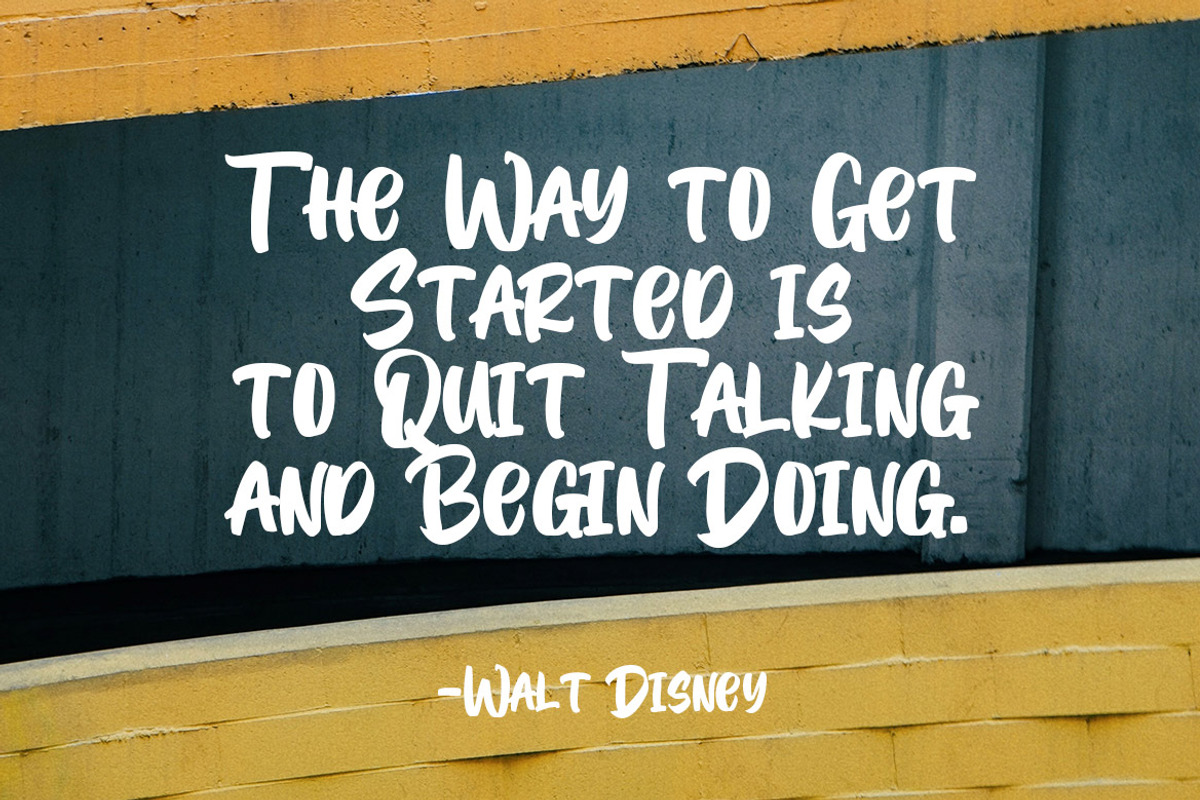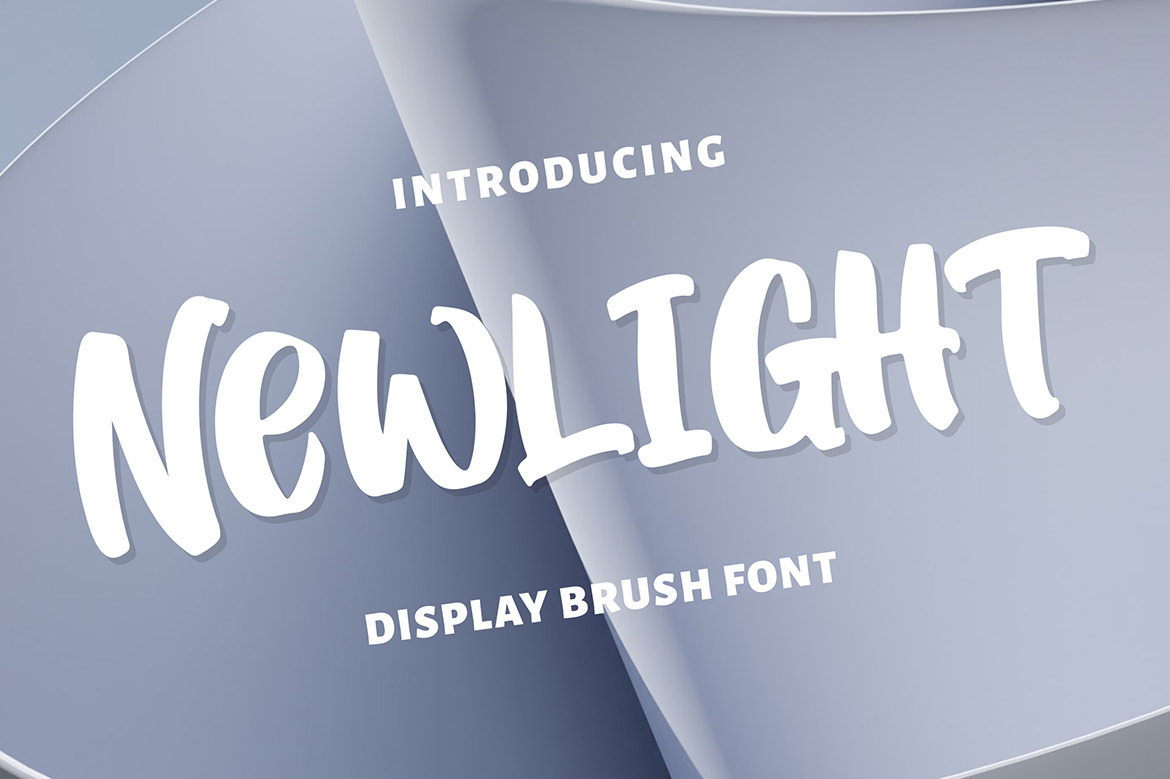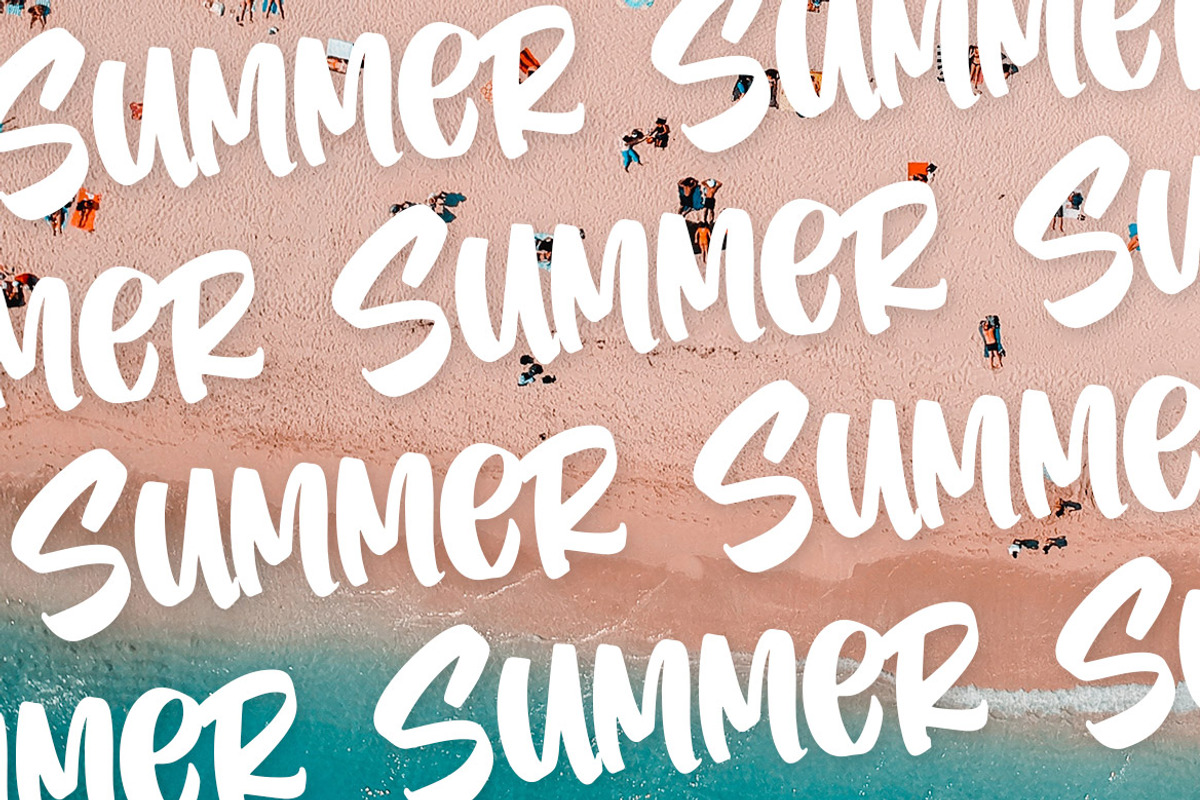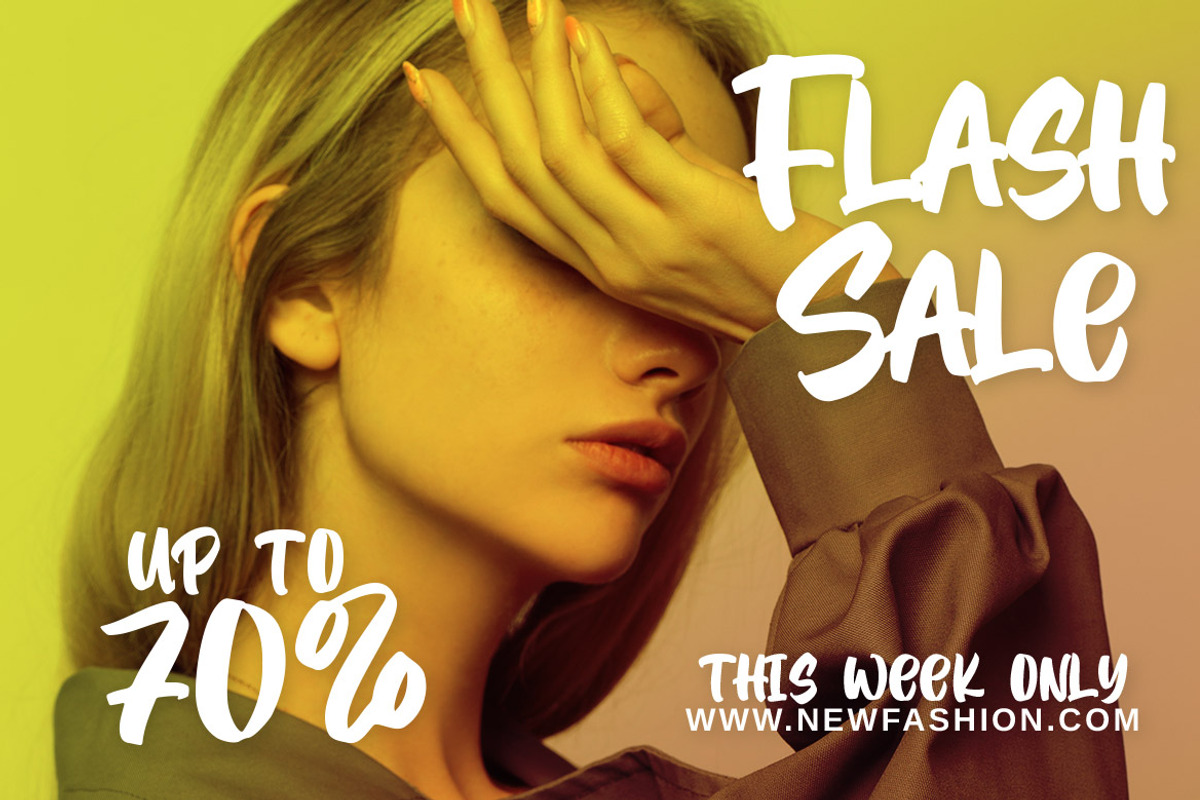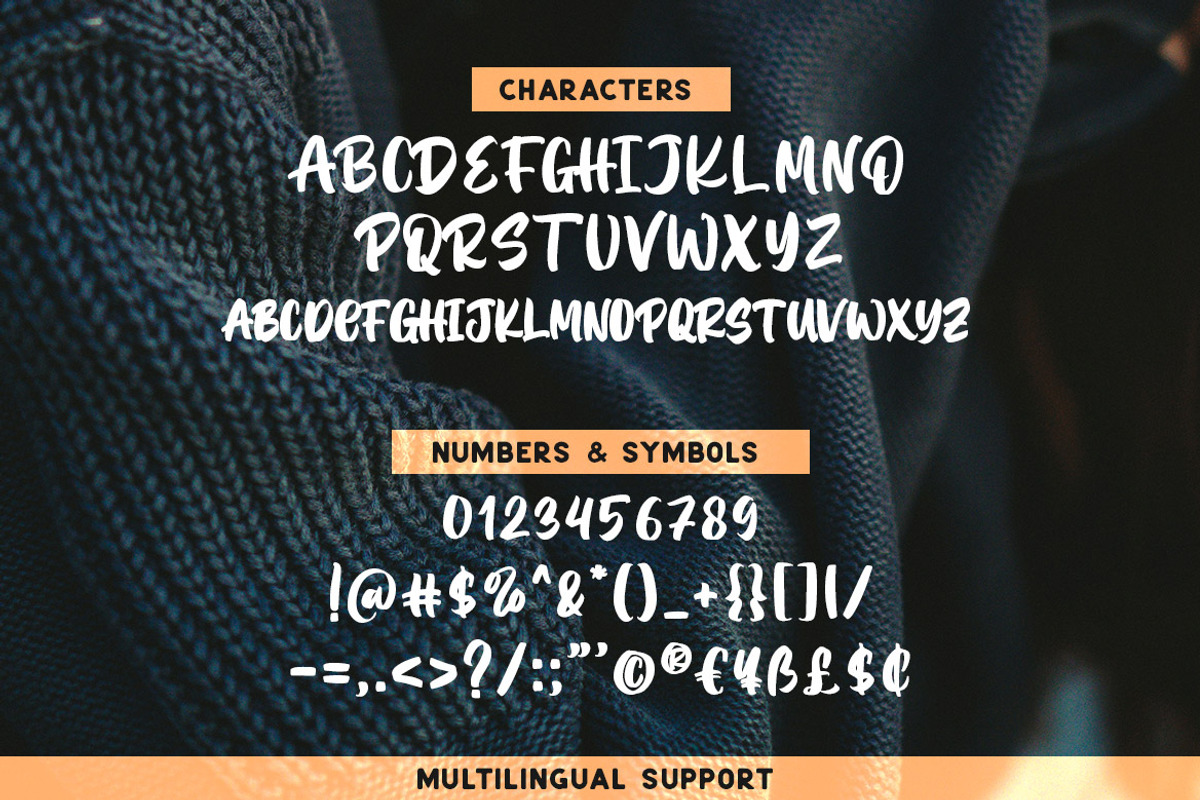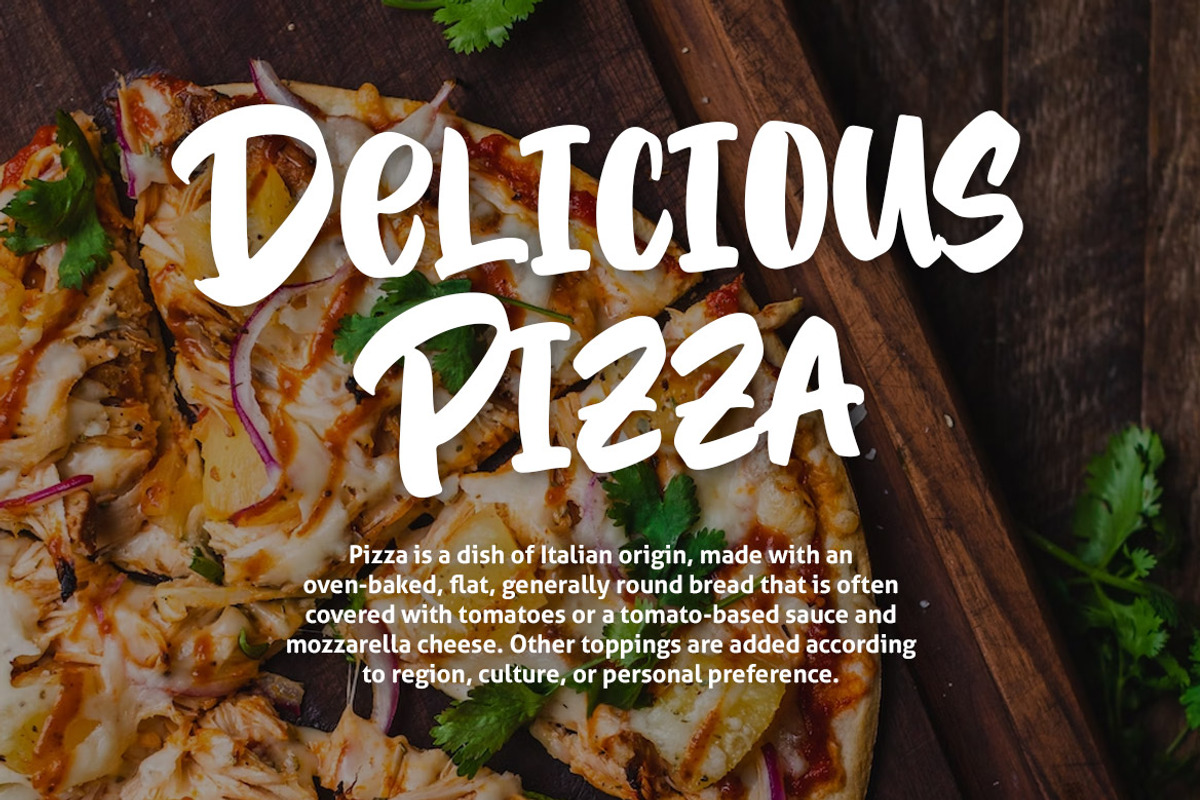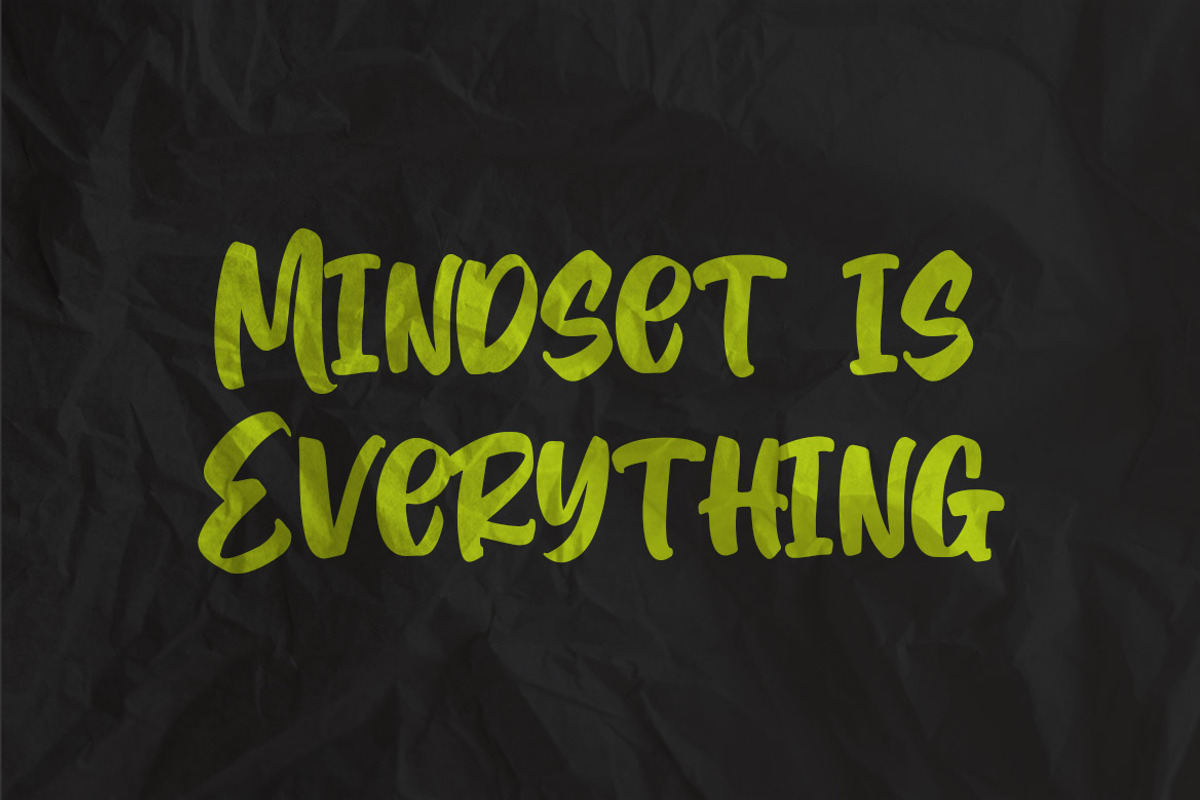
Newlight - Display Brush Font
Newlight is a unique and stylish font that features clean brush strokes. This font is composed entirely of capital letters, giving it a bold and commanding presence. It is perfect for use in posters, book and magazine covers, and other design projects that require a strong and modern look.